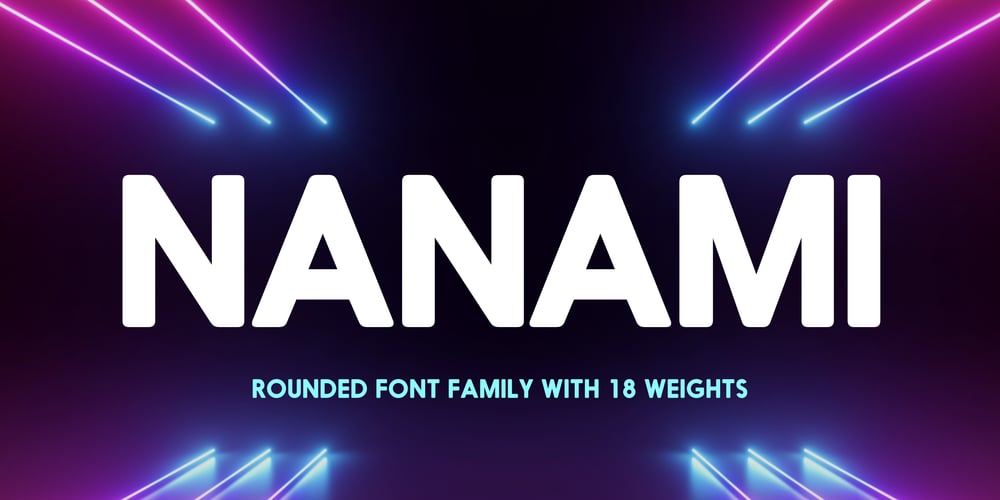
Nanami Rounded Font Family was designed by Alex Haigh and published by HyperFluro. Nanami Rounded contains 19 styles and family package options. Nanami Rounded is a heavily engineered follow up to the hugely successful Nanami, which debuted at MyFonts #1 Hot New Fonts for over 2 weeks. Nanami Rounded is a carefully engineered take on the original Nanami family. We kept the curve very slight in order to keep the clean corporate balance, and not to go into a style that was too friendly. Nanami Rounded consists of 18 weights ranging from Thin through to Black. It has also extensive support for over 50 languages, and as a font family that works well both in headlines and bodycopy, Nanami Rounded is the perfect choice for a whole variety of creative briefs. The gentler, softer follow-up to the popular Nanami, Nanami Rounded is also motivated by the artistry of Japan. Smoothing the hard lines and definite corners of its predecessor just slightly, Nanami Rounded is still clearly defined and crisp enough to work in whatever context you need. If Nanami is a battle hardened Samurai, Nanami Rounded is the lotus blossom favour handed to him as he leaves his home village to go to war. If Nanami Rounded isn’t quite floating your boat why not check out it’s counterparts Nanami and Nanami Handmade.